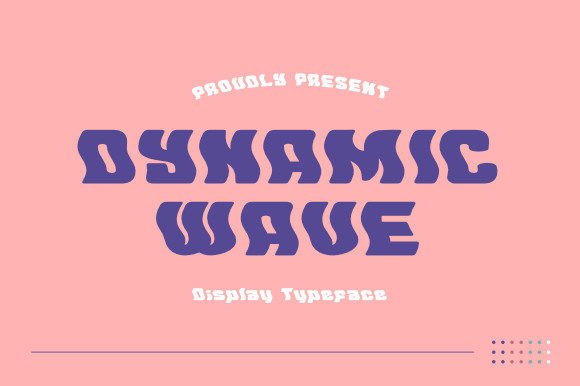
The Groovy World of Dynamic Wave Font
I’ll never forget the time I was working on a retro-themed poster for a music festival, and I just couldn’t find the right font to capture that funky, laid-back vibe. The client wanted something that screamed “hippie chic,” but my usual go-to fonts just weren’t cutting it. That’s when I stumbled upon Dynamic Wave Font, and let me tell you, it was love at first sight! 💫
A Honest Review of Dynamic Wave Font
So, what makes Dynamic Wave Font so special? Here are a few things I absolutely love:
- ✨ Its retro and groovy vibe is perfect for hippie-inspired designs
- ✅ The wavy lines and curves add a fun, playful touch to any project
- 💥 It’s incredibly versatile and can be used for a wide range of design projects, from posters to social media graphics
Of course, no font is perfect, and Dynamic Wave Font does have a few small quirks:
- 🤔 Some of the letters can be a bit tricky to read at smaller sizes, so it’s best to use it for display purposes only
- ⚠️ The font can be a bit overused, so be careful not to overdo it – a little goes a long way!
The Backstory Behind Dynamic Wave Font
According to the font’s creators, Dynamic Wave Font was inspired by the retro posters of the 1960s and 1970s. They wanted to capture the essence of that era’s free-spirited, bohemian vibe in a font that would be fun, playful, and easy to use. And I think they succeeded!
| Font Name | Dynamic Wave Font |
| Author | EKNOJI |
| What is Dynamic Wave Font? | Dynamic Wave Font is a funky and wavy display font with a retro and groovy vibe. |
| What can I use Dynamic Wave Font for? | Dynamic Wave Font is perfect for a wide range of design projects, from posters and social media graphics to logos and branding materials. |
| Is Dynamic Wave Font easy to read? | Dynamic Wave Font can be a bit tricky to read at smaller sizes, so it’s best to use it for display purposes only. |